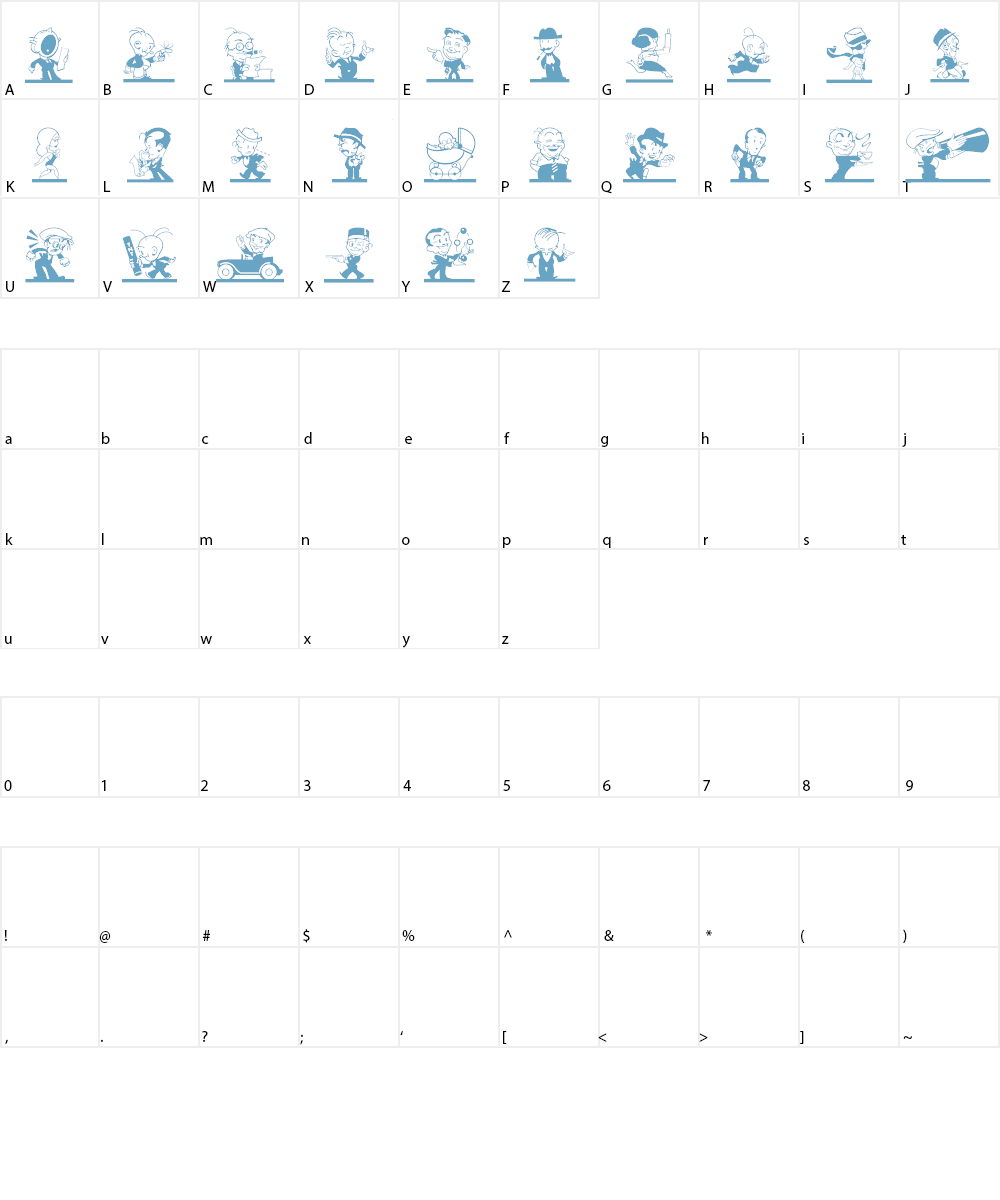
They’re back! Due to overwhelming popular demand (okay — a few of you wrote me and asked for more), those wacky little big-headed guys return for a sequel. Included in this group are several two-letter combination characters: see especially GH, JK and MN. Twenty-six all-new cuts (uppercase A through Z).